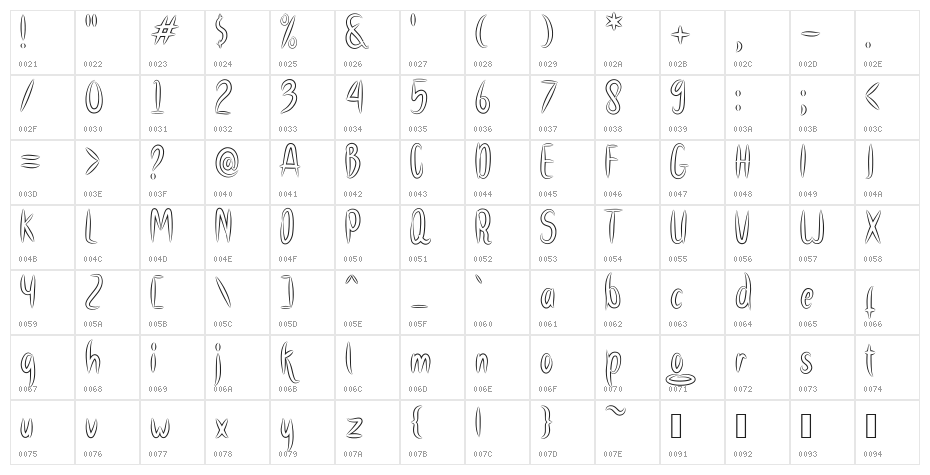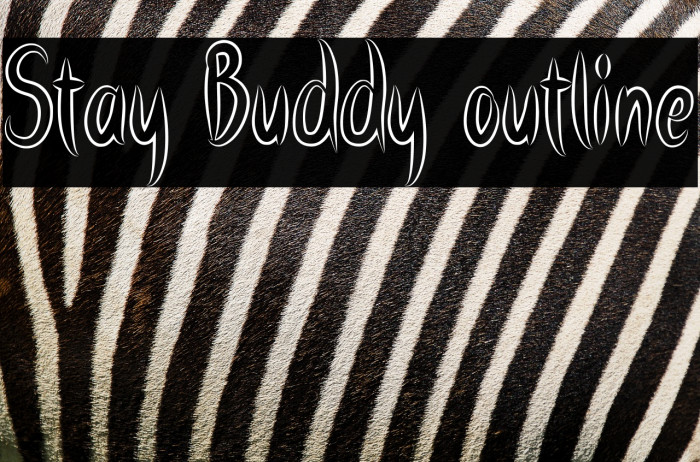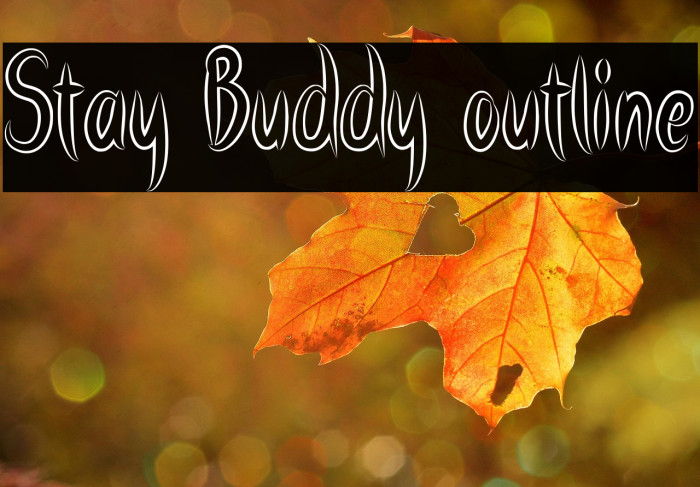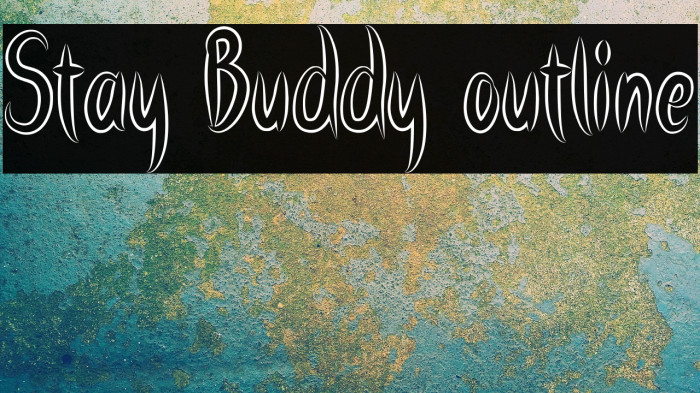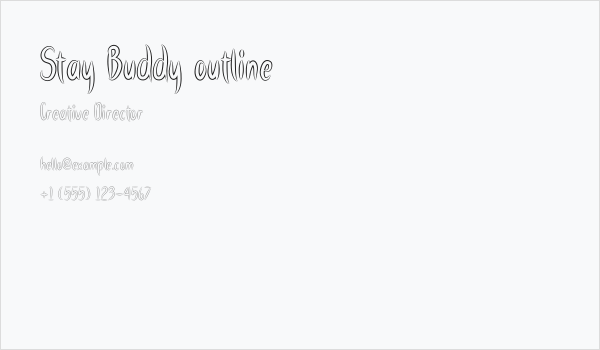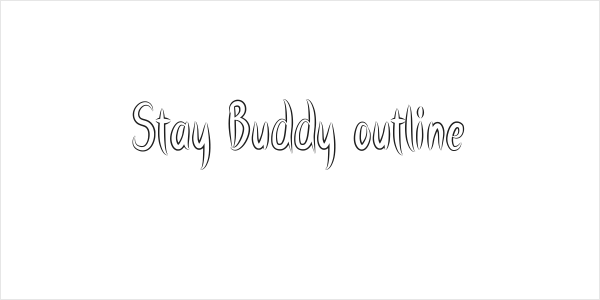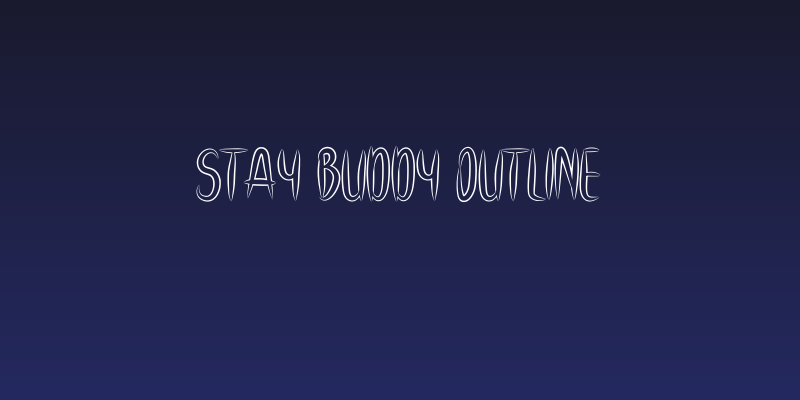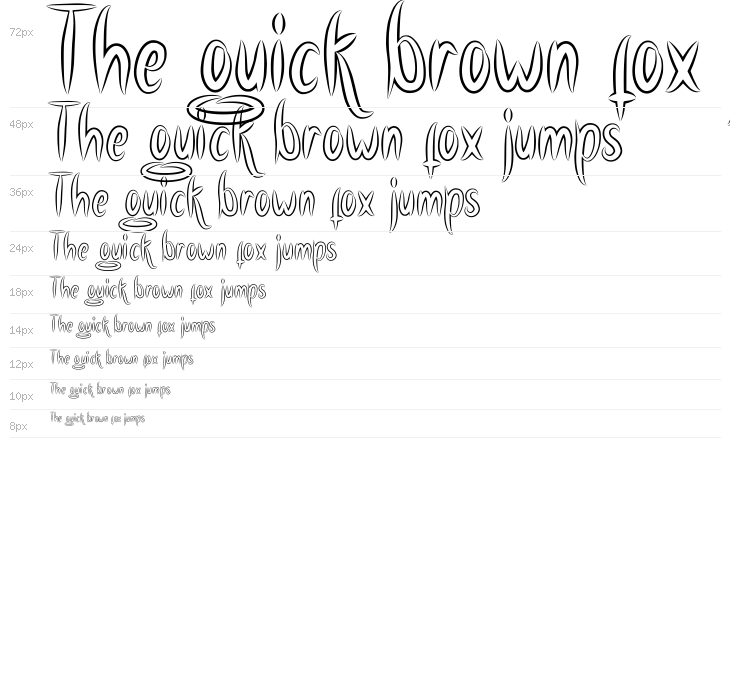
Stay Buddy outline Font
Stay Buddy outline Description
This font features a playful and dynamic outline style, characterized by its elongated and slightly exaggerated letterforms. The strokes are bold and fluid, giving a sense of movement and energy. Each character is uniquely crafted with a whimsical flair, making it stand out in any design. The uppercase and lowercase letters maintain a consistent style, while the numerals and special characters complement the overall aesthetic. This font's outline design adds a layer of depth, making it suitable for eye-catching headlines and creative projects.
| Proposed Projects | Ideal for children's book covers, playful branding, posters, and creative advertising. |